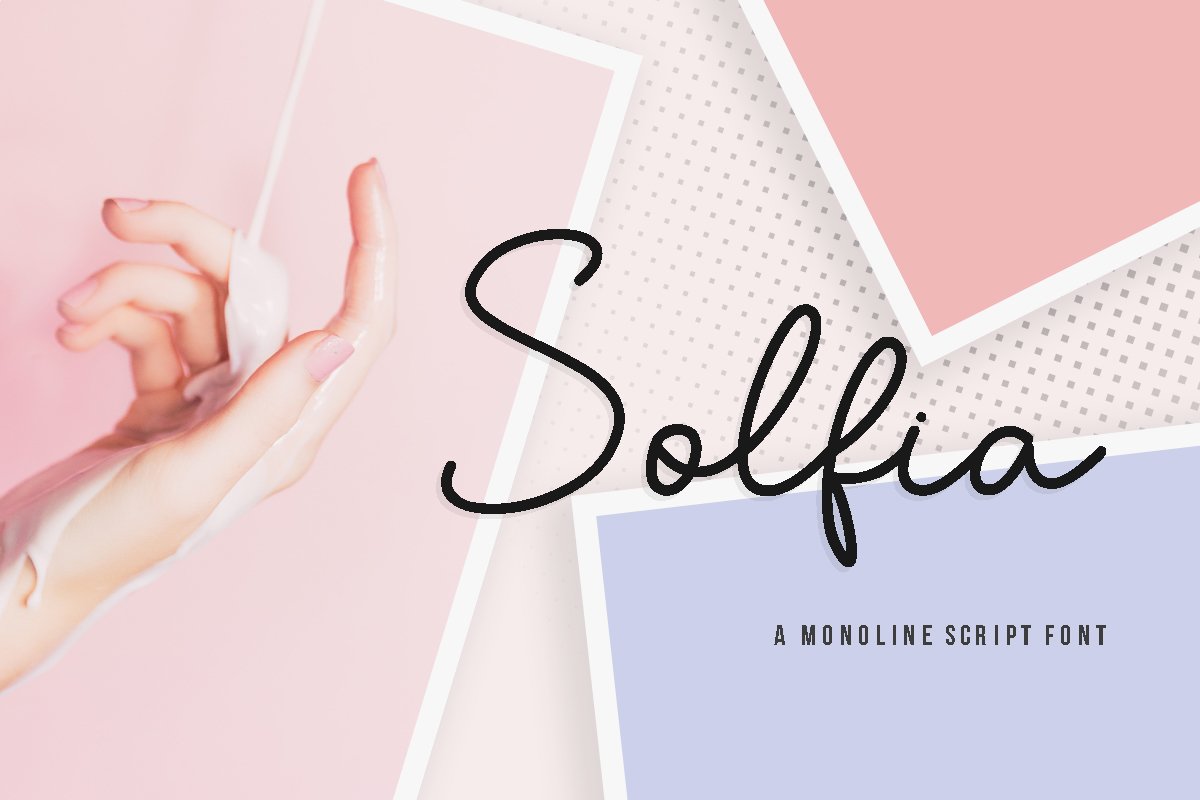
Solfia
Solfia is a sweet and cute handwritten font. It will elevate a wide range of design projects to the highest level, be it branding, headings, wedding designs, invitations, signatures, logos, labels, and much more!